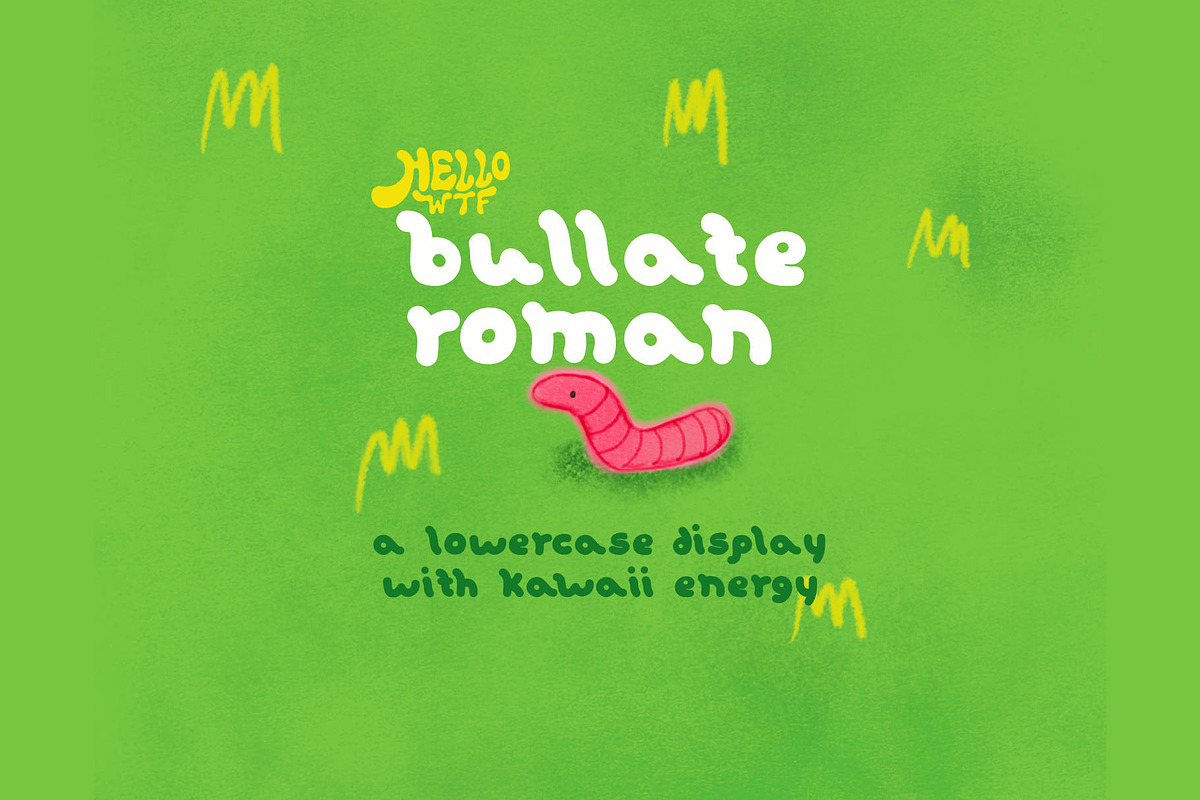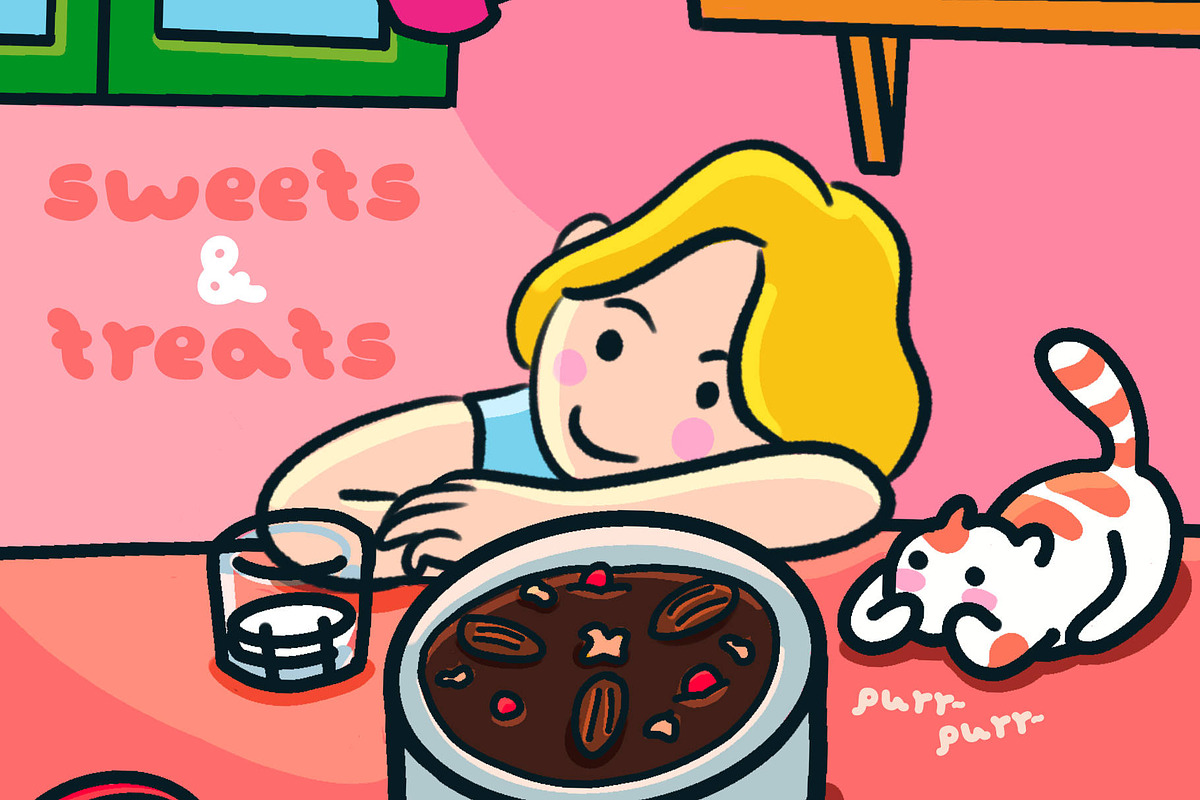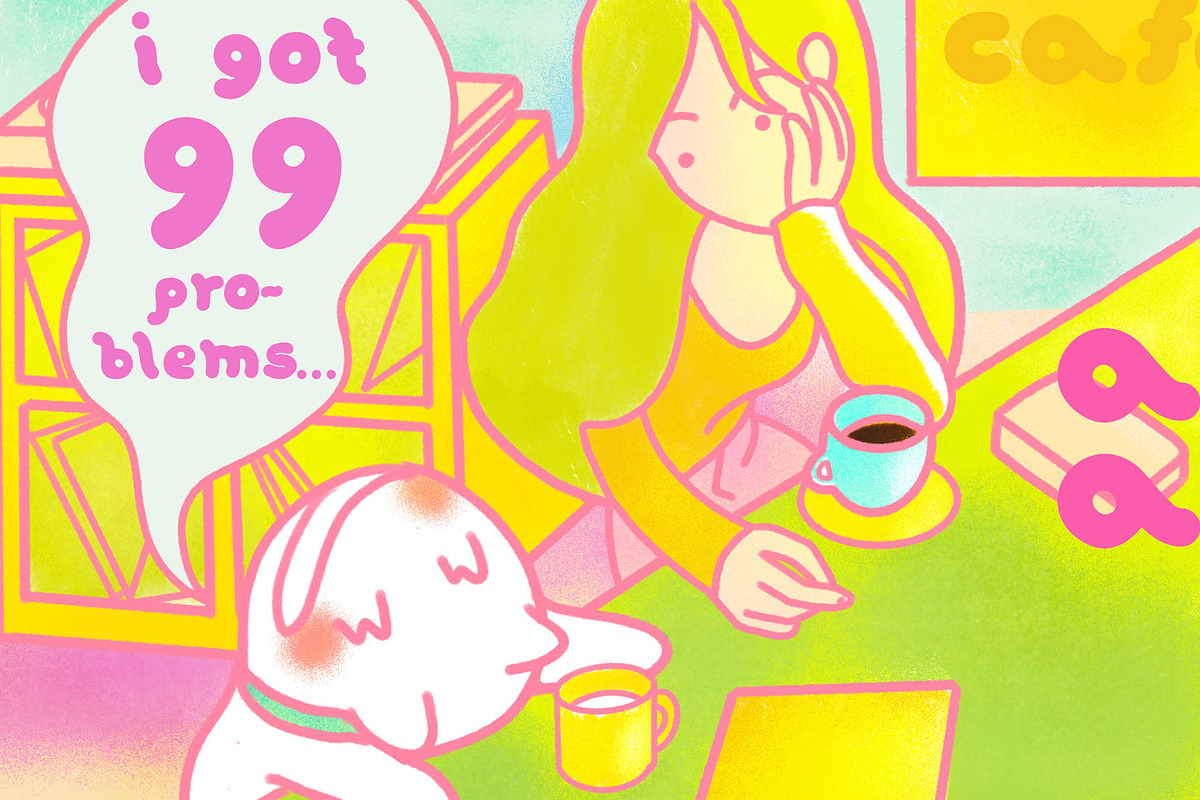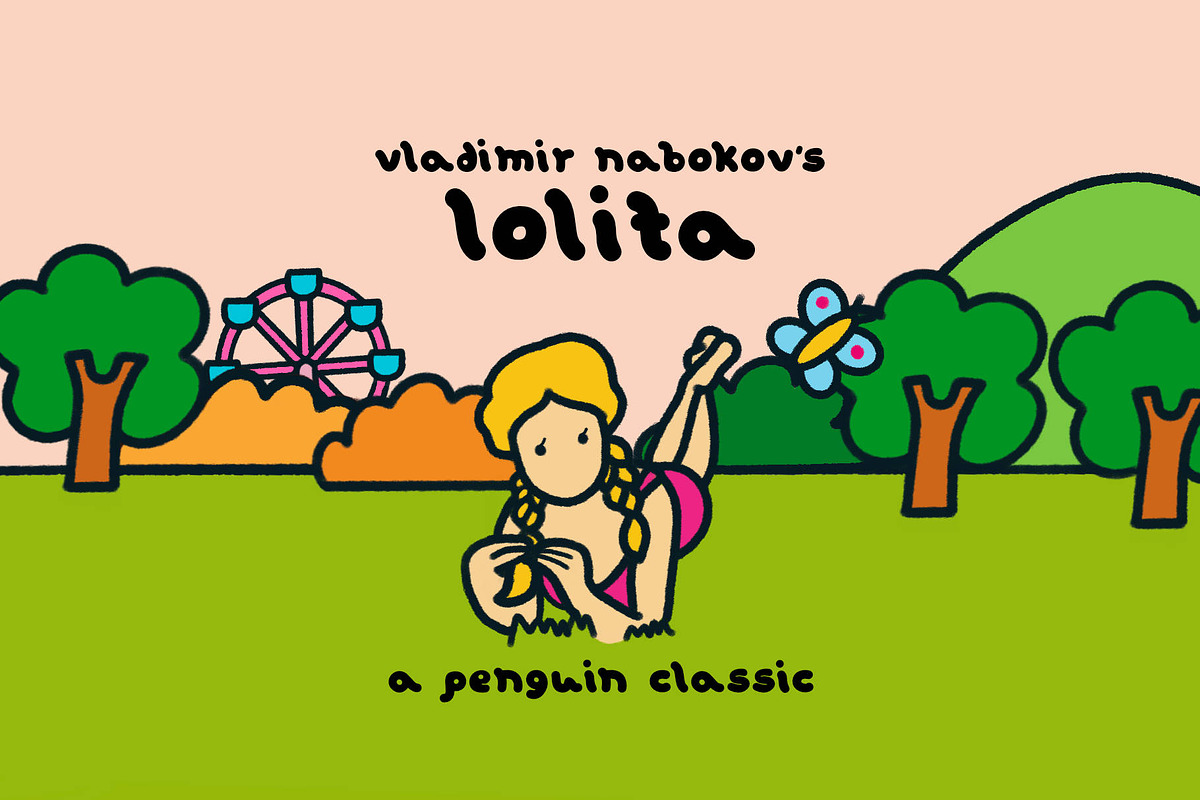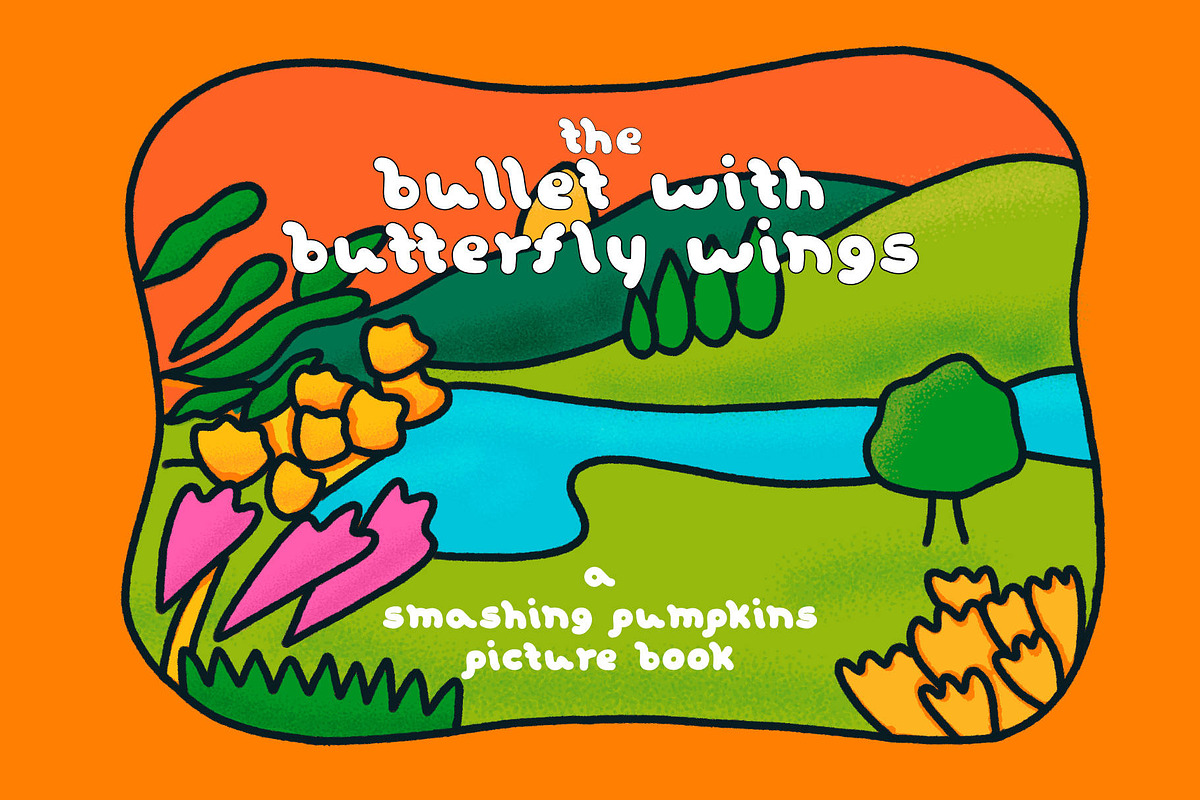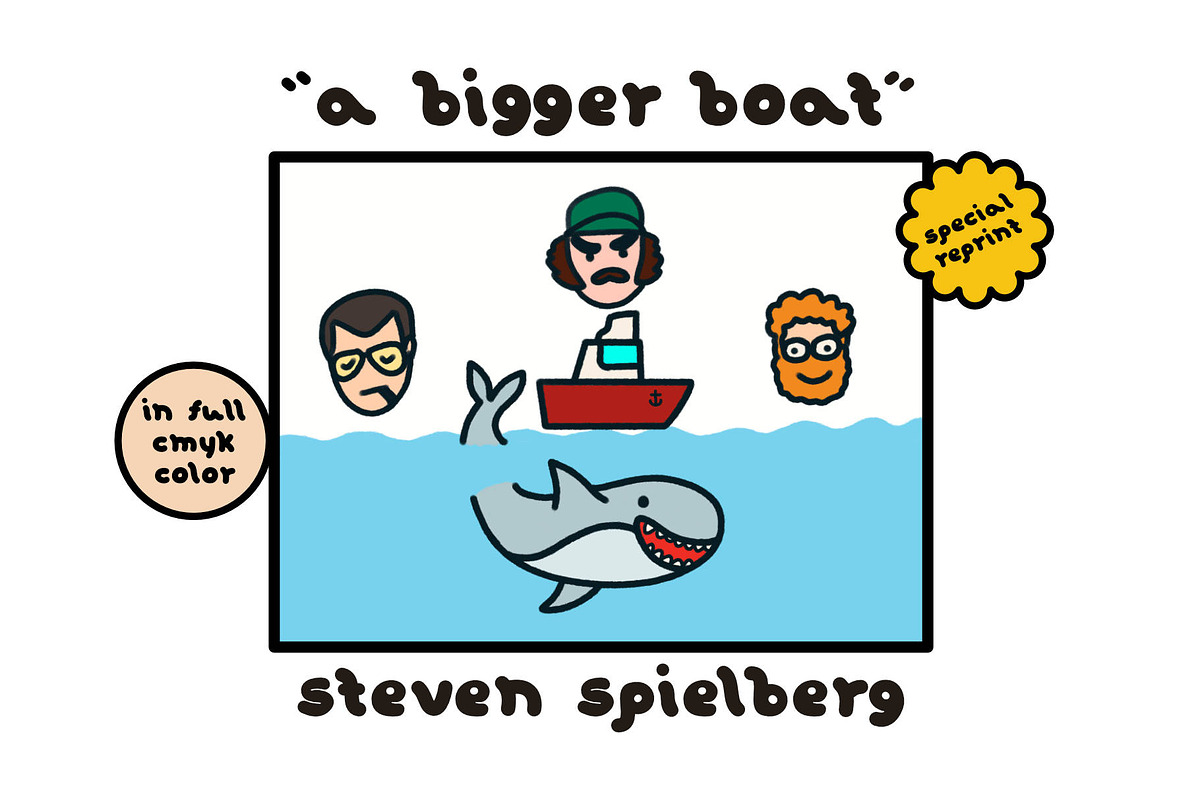
bullate roman
Bullate Roman is a lowercase display typeface inspired by kawaii style graphic design. It comes from the Filipino word bulate which means worm. With an extra 'll' makes it sound like buyate in Spanish. Which means nothing. Because no reason is needed to be kawaii!